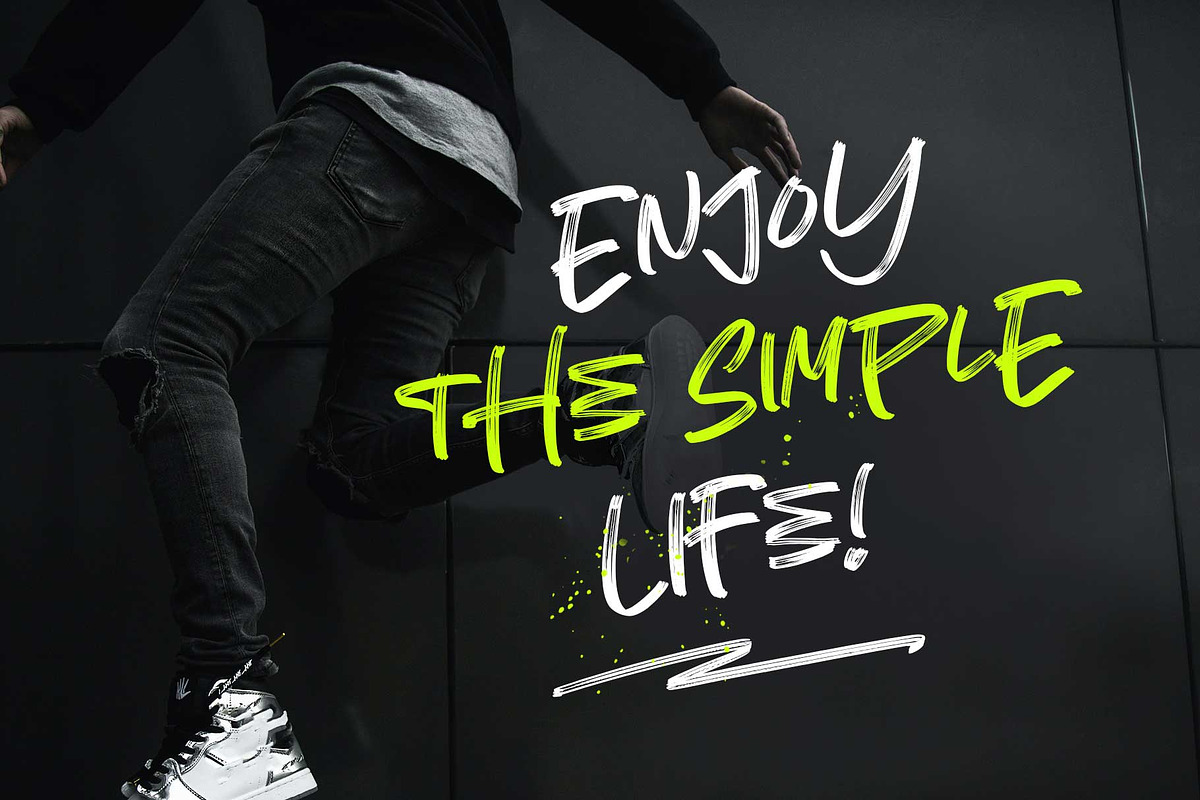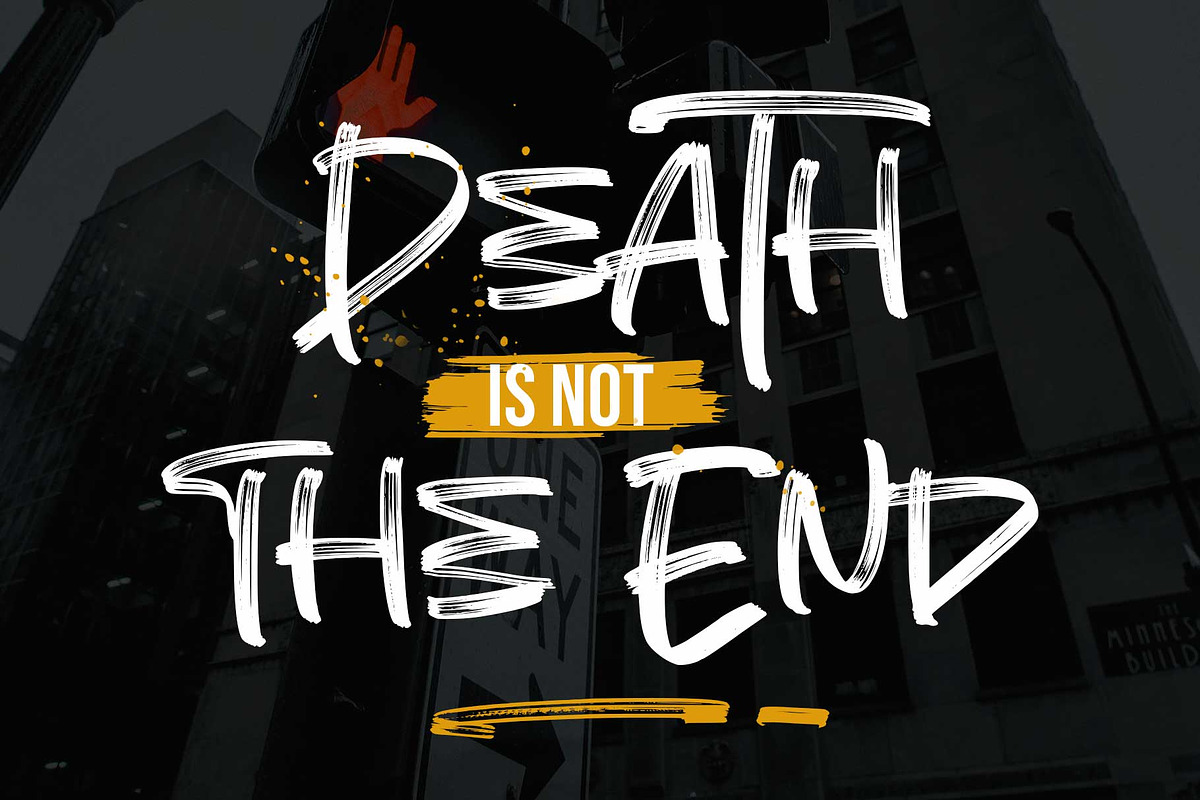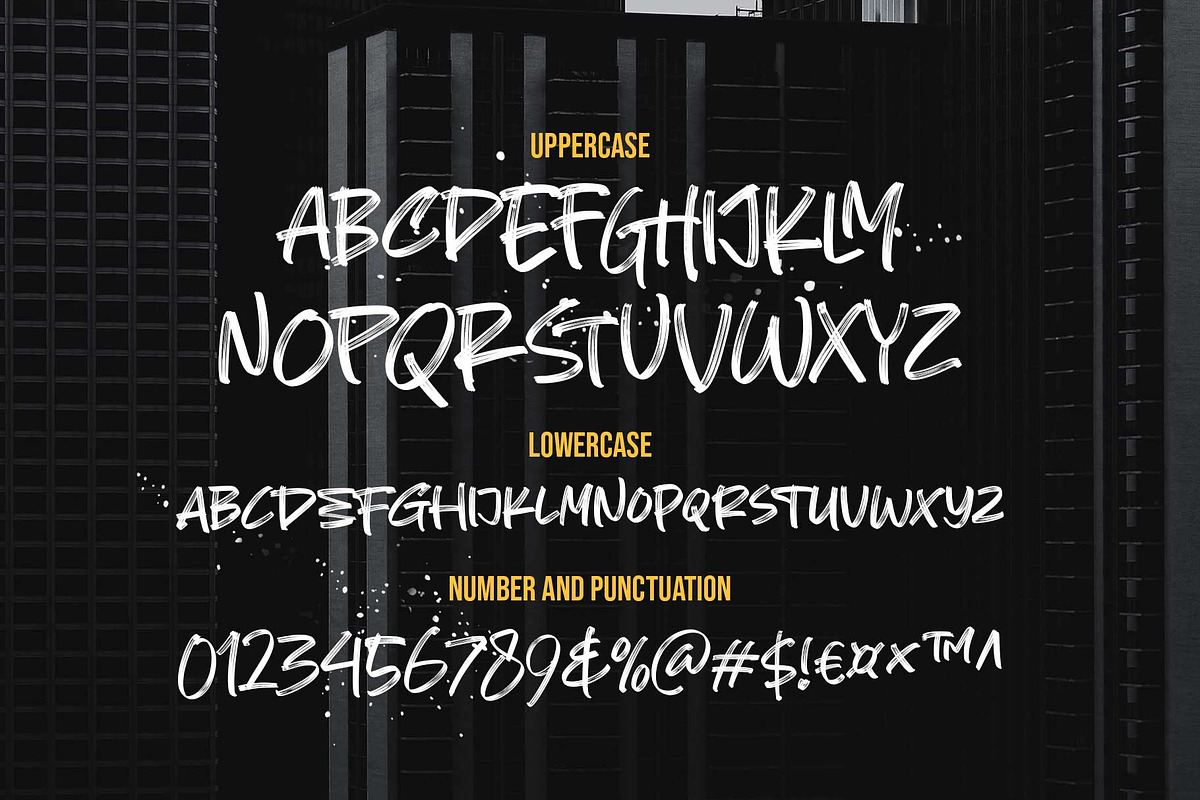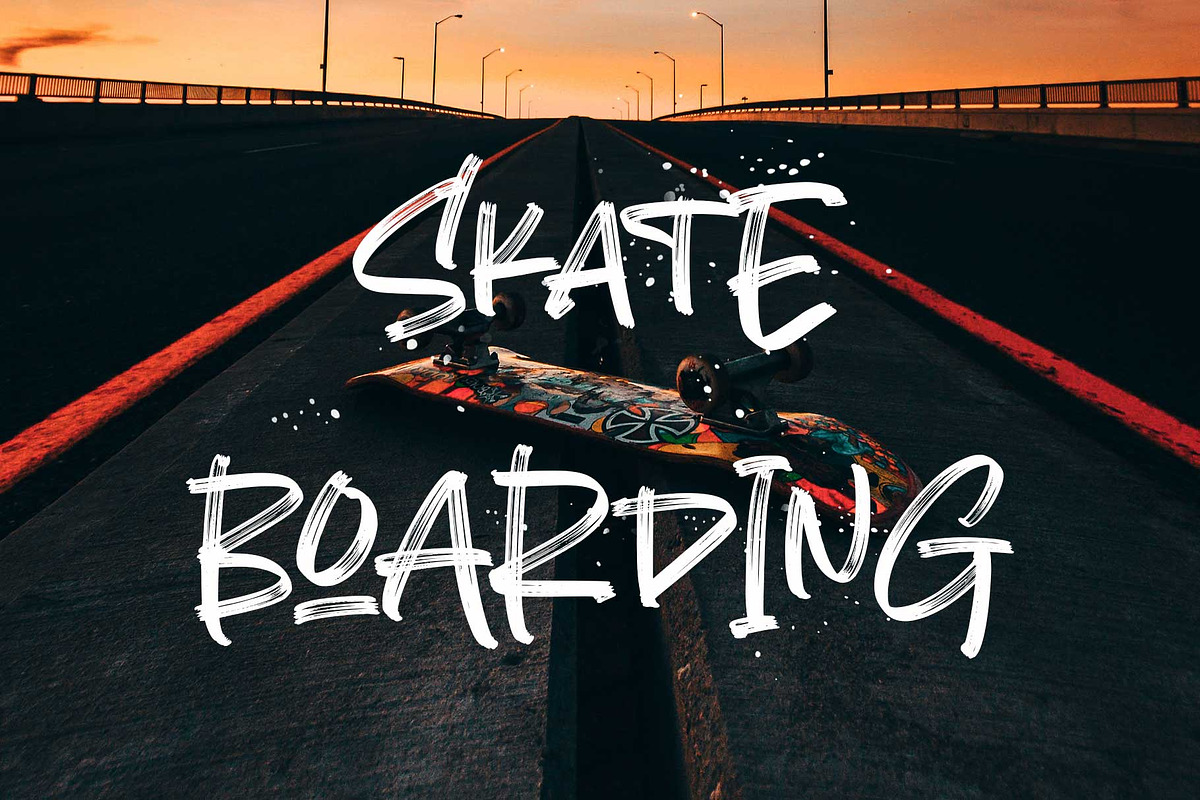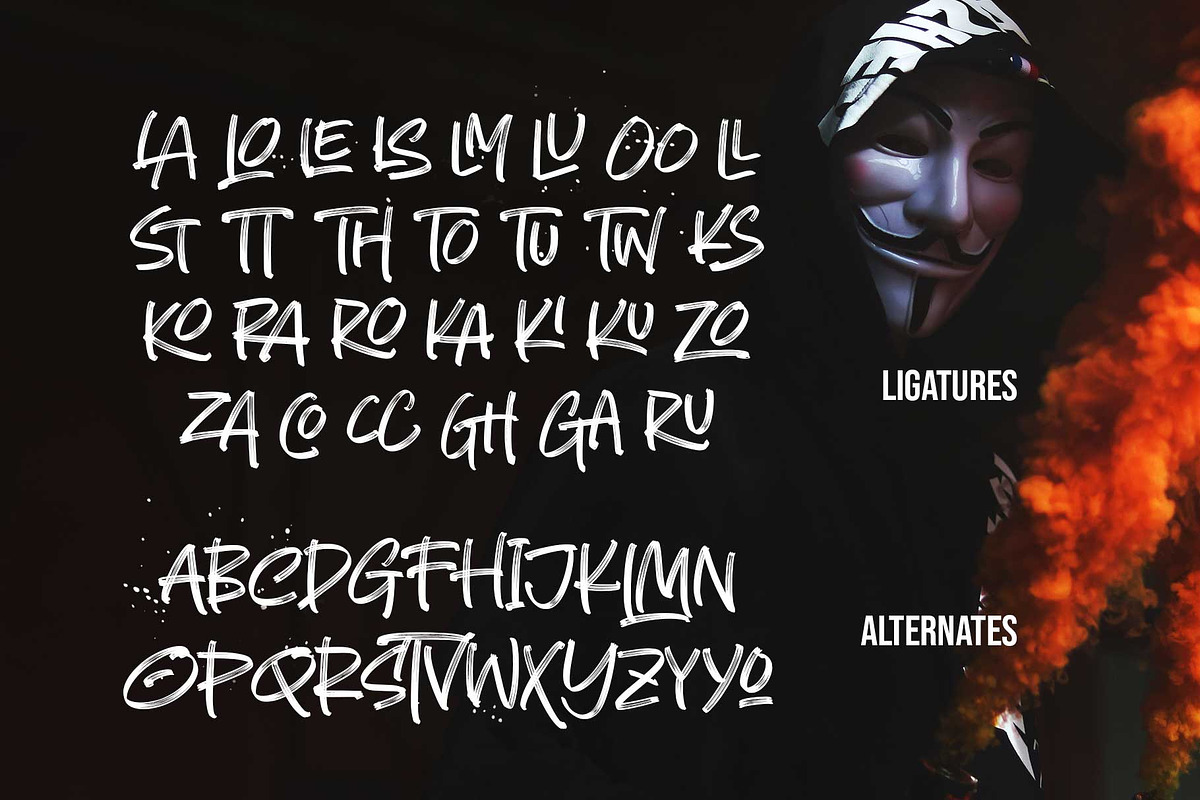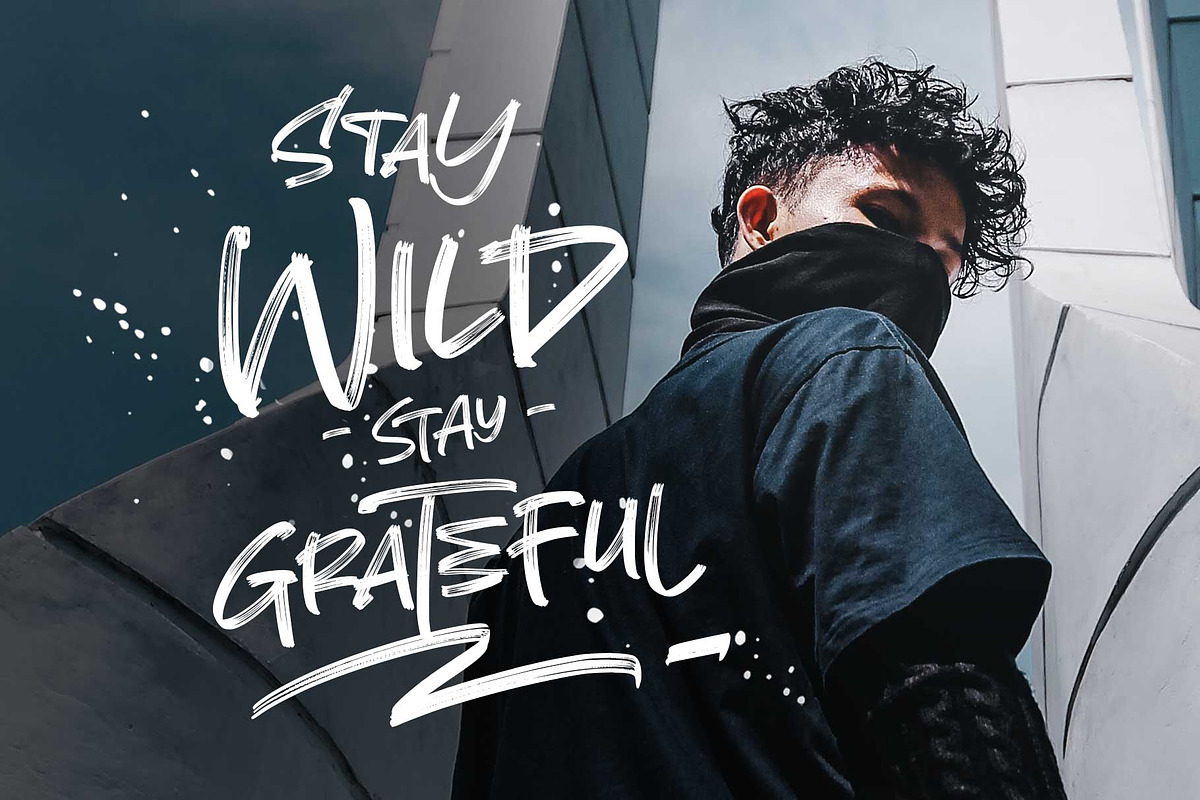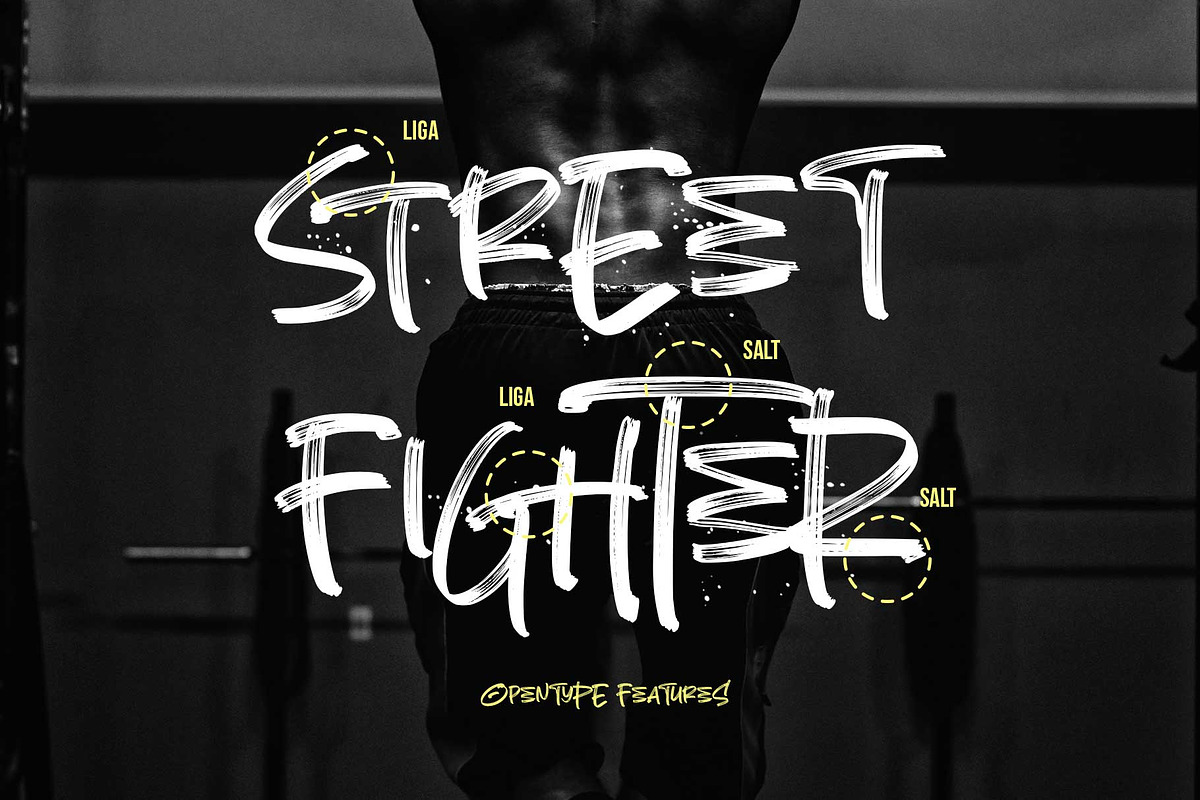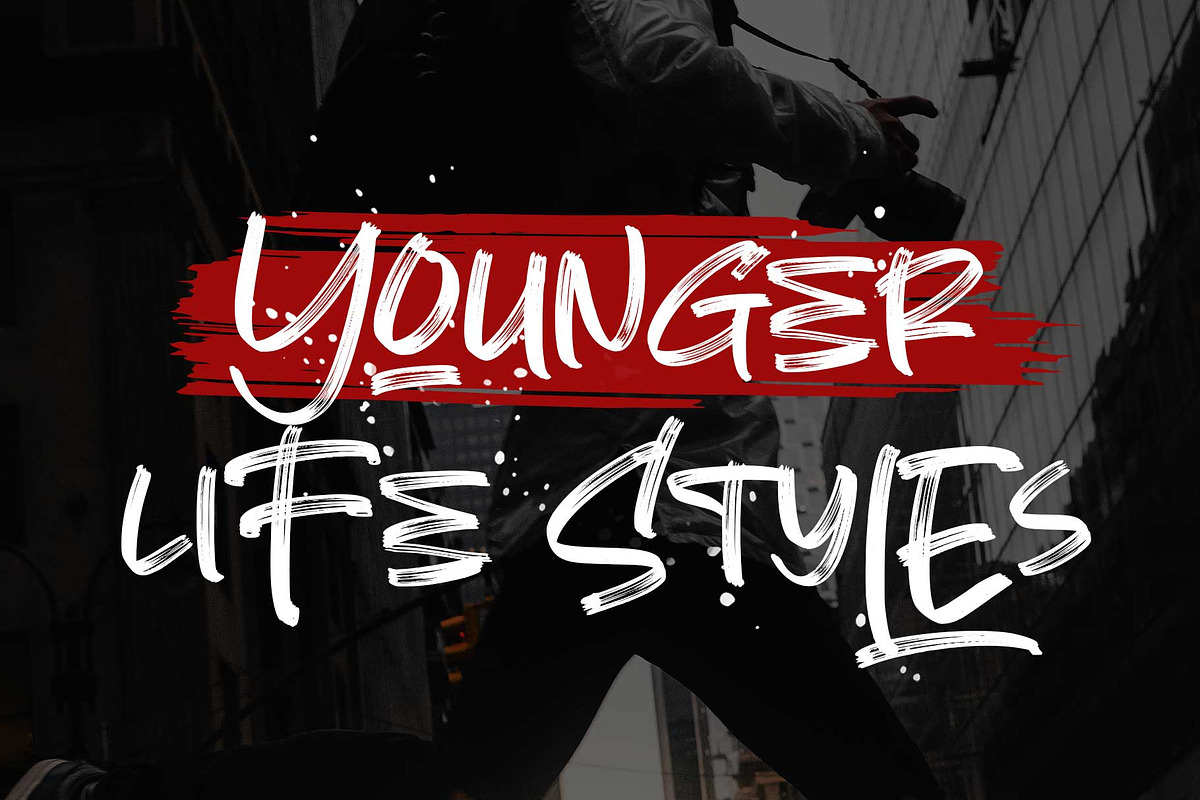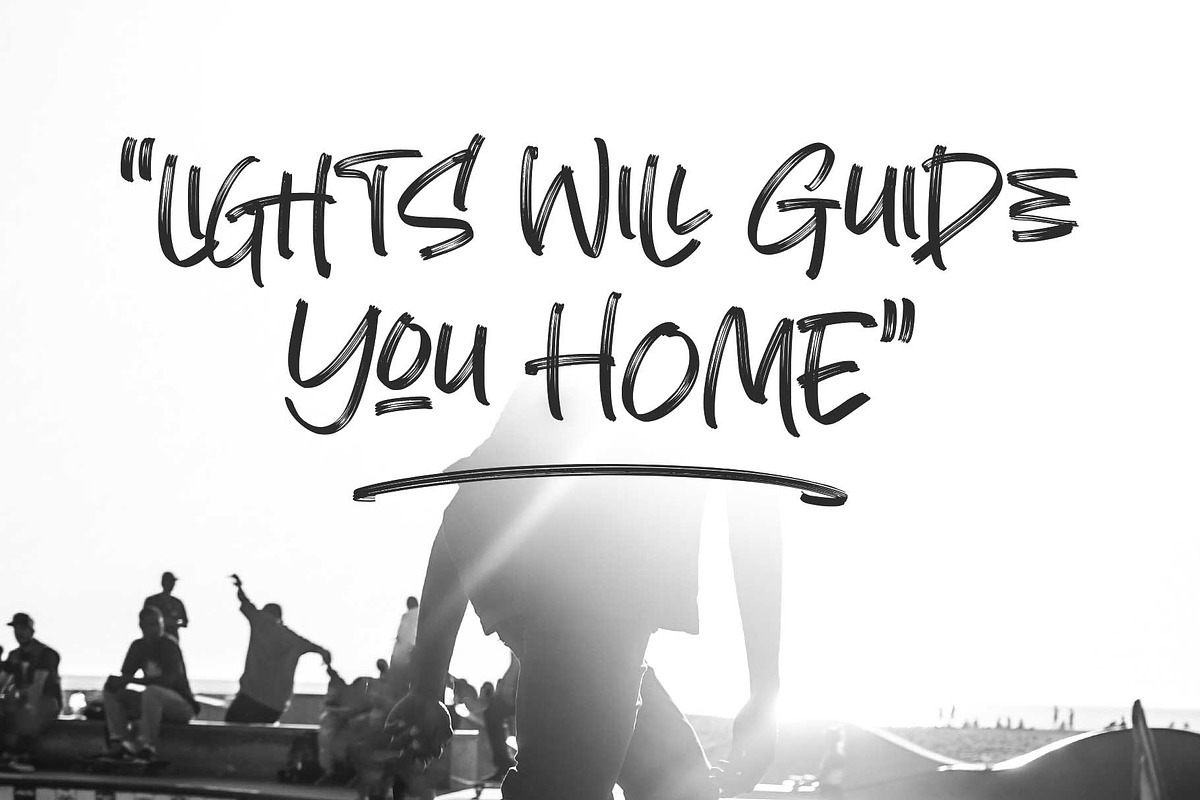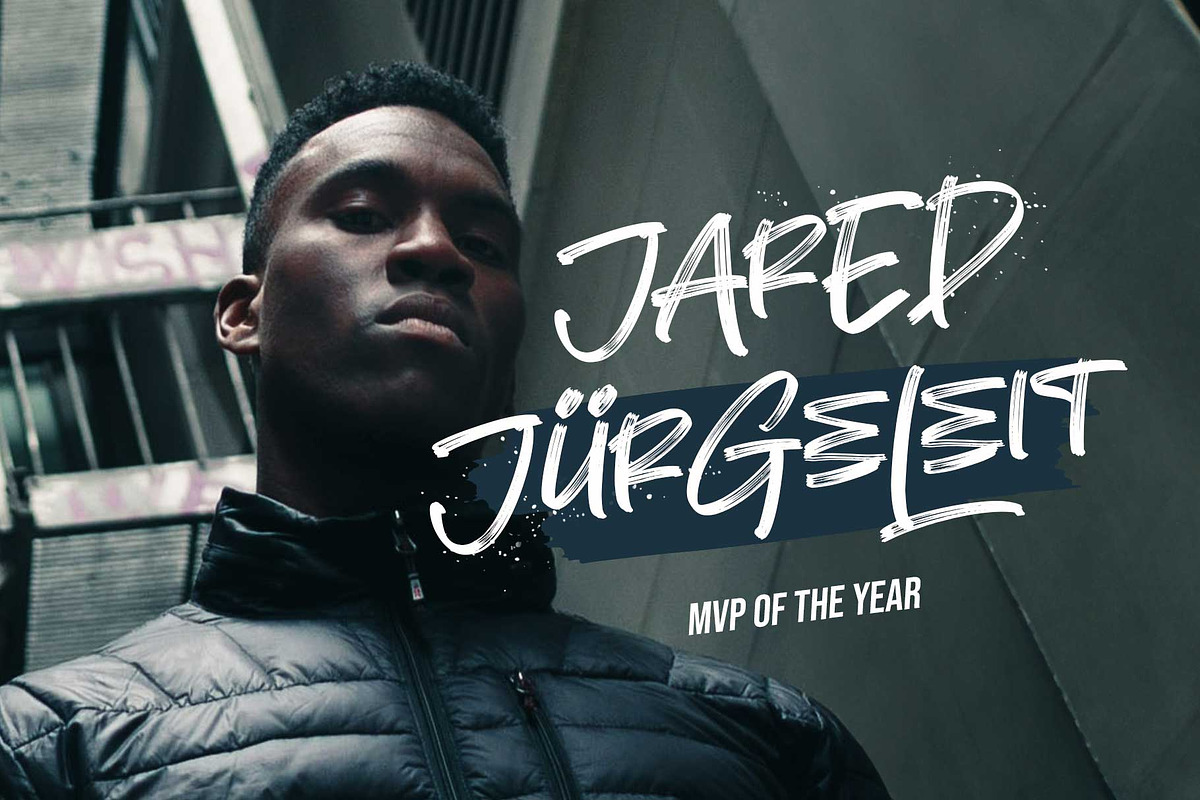
Monster Grande
Explore the Monster Grande font – an assertive, hand-drawn typeface with an impressive texture. Combining urban style and a dry marker effect, this all-caps font imparts an energetic and trendy look.
Monster Grande features a unique design suitable for various themes such as sport, urban, pop, underground, futuristic, or contemporary styles. Equipped with stylistic alternates and numerous ligatures, Monster Grande enhances your design, providing a realistic handwritten feel.
Font features :
- Smallcaps
- Stylistic alternates
Have fun with this freestyle font!